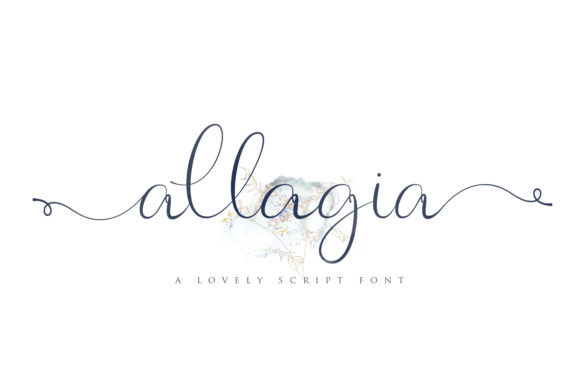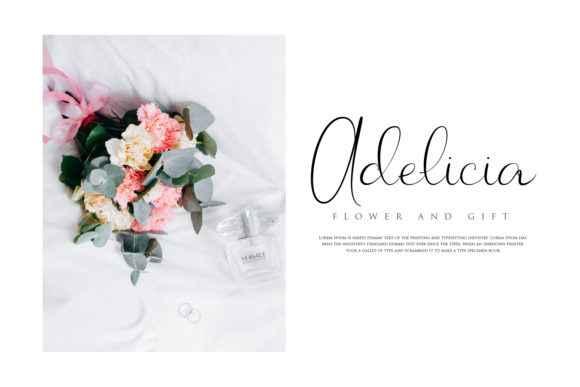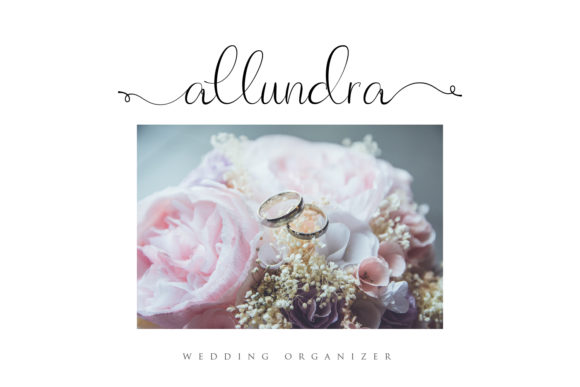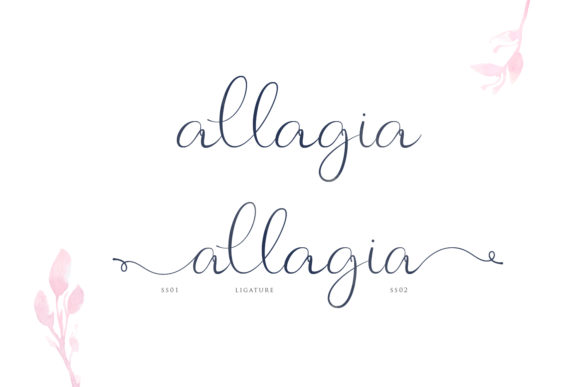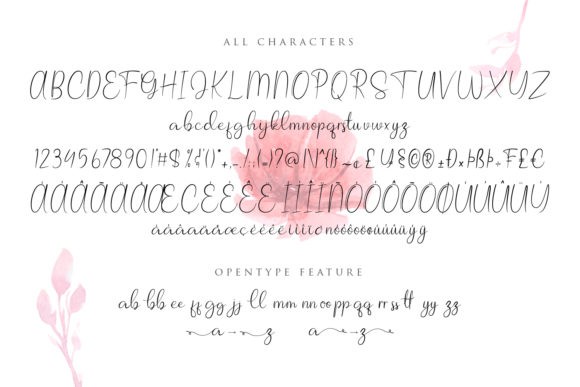
Allagia Font
About Allagia Font
The lovely Allagia font is a true stand-out. It has a very natural feel, which is perfect for any design project that needs an elevated, classic and personal touch.